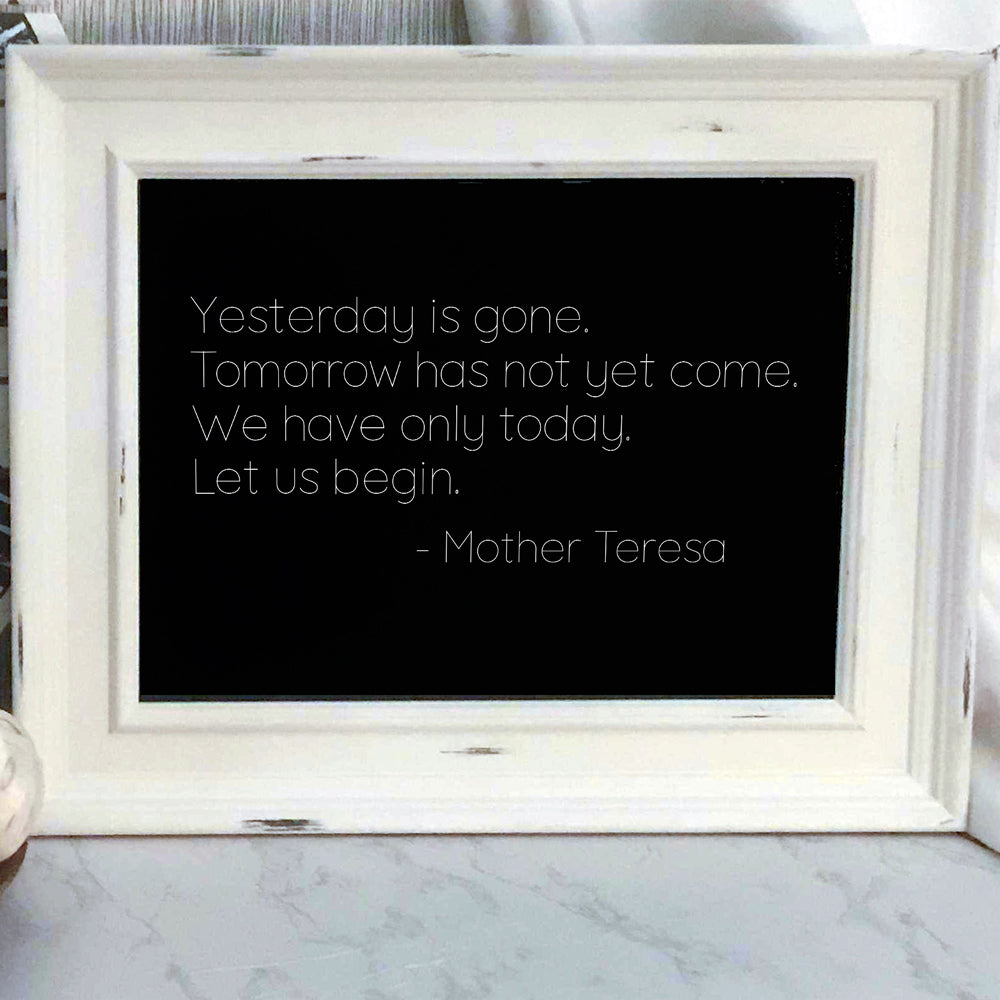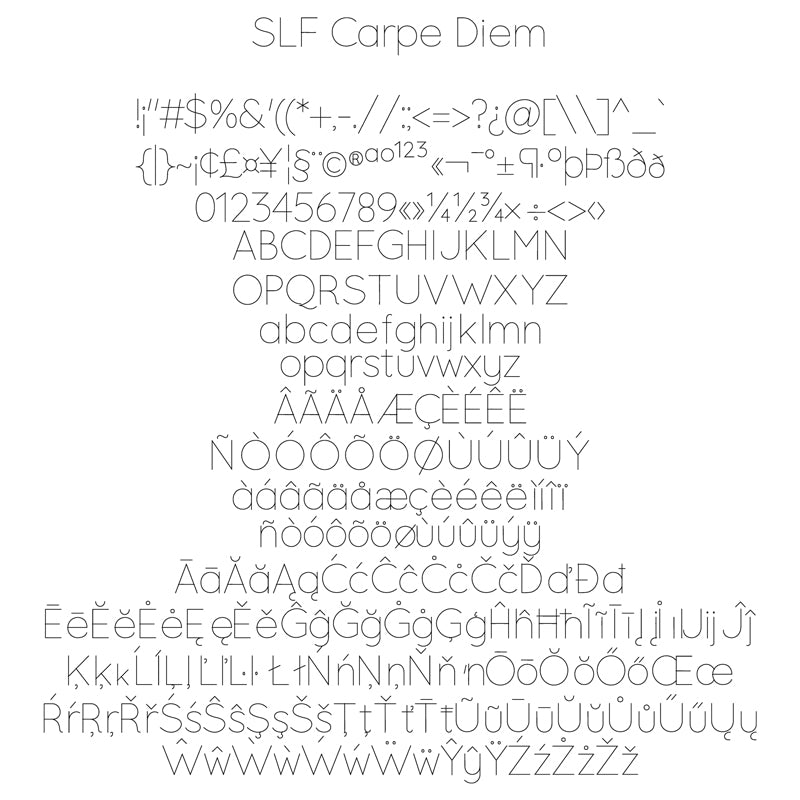
SLF Carpe Diem – Energetic Single Line Font for Engraving & Statement Projects
SLF Carpe Diem is an energetic, expressive single line print font with dynamic letterforms that capture movement and personality. Its lively style brings a sense of motivation to engraving, scoring, CNC routing, and creative craft projects. Perfect for eye-catching signs, personalized gifts, labels, décor, and statement pieces that make a bold impression.
This monoline font includes a complete character set with uppercase and lowercase letters, numbers, punctuation, symbols, and accented characters for multilingual support.
• Motivational signs, labels, décor, and custom engraved gifts